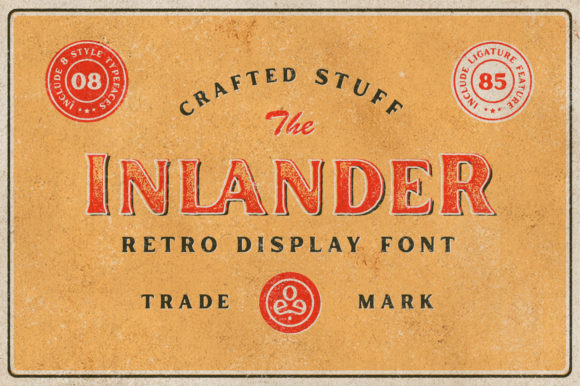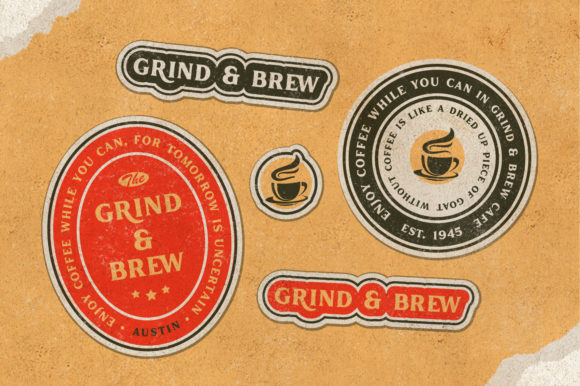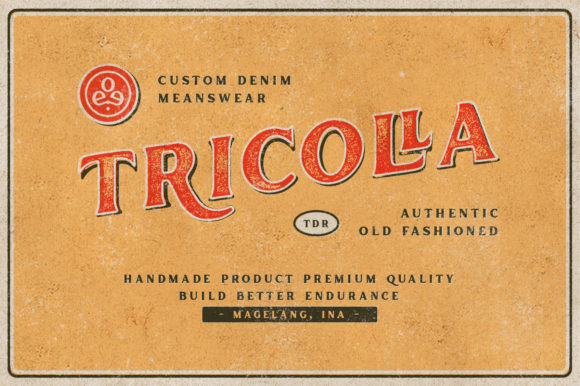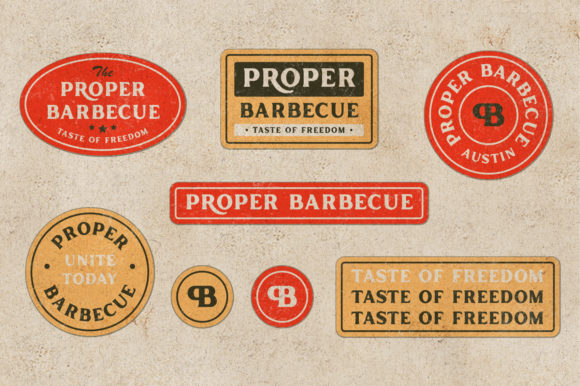
Inlander Font: A Quirky Retro Display Font for Unique Logo Design
About the Inlander Font
Crafted with precision, the Inlander Font is ready to bring your ideas to life. Inlander is a unique and interesting display font. A little bit quirky, this font is a great choice for a wide variety of contexts!
The Inlander matches applies in some designs such as the logotype, posters, labels, badges, packaging, branding, and more custom designs. The features all-caps, numeral, punctuation & symbol, ligatures, multilingual support, PUA encoded.
Inlander’s quirky personality shines brightest in headlines, short slogans, and branding applications where its unique character can make a strong visual statement. It excels in posters, packaging, and logos, adding a touch of playful boldness. However, its distinctive forms make it less suitable for body text or UI elements requiring high readability over extended lengths.
For optimal visual harmony, pair Inlander with a clean sans-serif like Open Sans for a balanced contrast, or a classic serif like Garamond for a sophisticated juxtaposition. A geometric sans-serif such as Futura would provide a modern counterpoint, while a script font like Pacifico could enhance the playful aspect.
Inlander projects a bold and friendly personality, ideal for brands aiming for a memorable and slightly unconventional image. It’s a versatile yet distinctive choice for projects that need to stand out without appearing overly serious or formal.
Inlander Font Usage Examples
Inlander Font Example